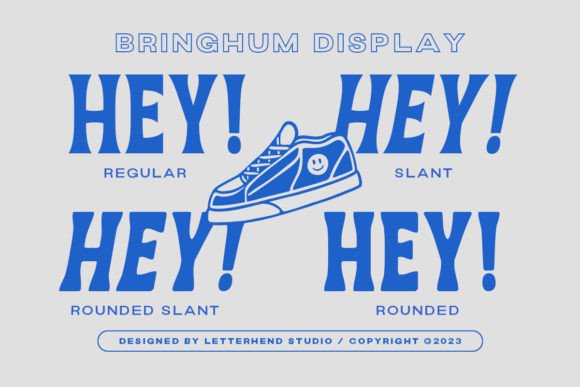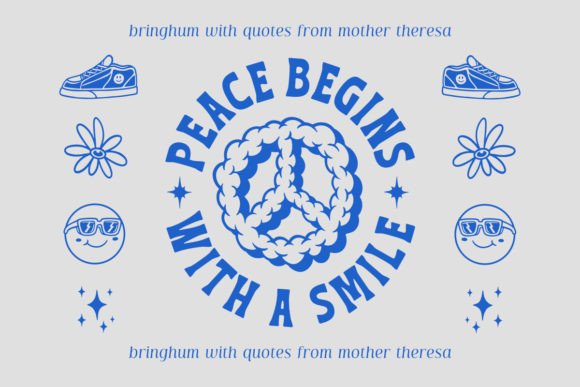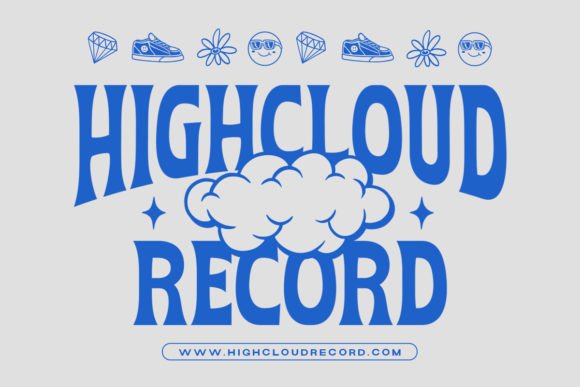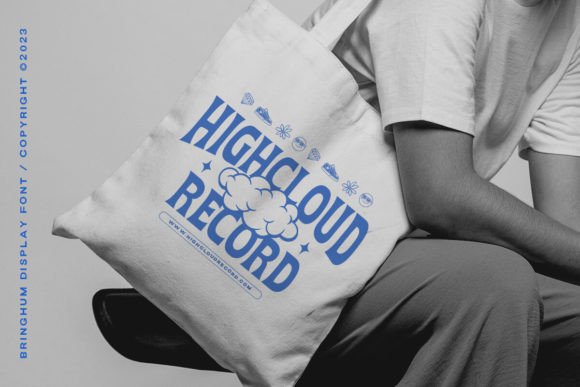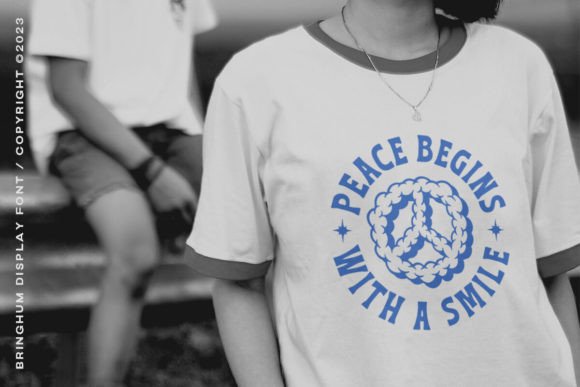
Introduction to Bringhum Display Font Font
Fonts play a crucial role in design, and the Bringhum Display Font font is a typeface that brings both character and versatility to any project. Whether you’re working on a branding project, a website, or a print design, the Bringhum Display Font font offers a unique style that can elevate your work.
Introducing Bringhum, a bold and nostalgic typeface that captures the essence of the 90s era.
Immerse yourself in its retro charm Explore the versatility of this font by incorporating the accompanying cartoon illustration to enhance your design.
Key Features of Bringhum Display Font Font
Why Choose Bringhum Display Font Font?
The Bringhum Display Font font is more than just a typeface – it’s a design tool that helps you communicate your message with style and clarity. Its unique character set and versatile design make it suitable for a wide range of applications, from elegant invitations to bold headlines.
With its carefully crafted letterforms and balanced proportions, the Bringhum Display Font font ensures readability and visual appeal across all mediums.
What makes Bringhum Display Font font special?
The Bringhum Display Font font stands out with its unique design, exceptional readability, and versatility across various design applications.